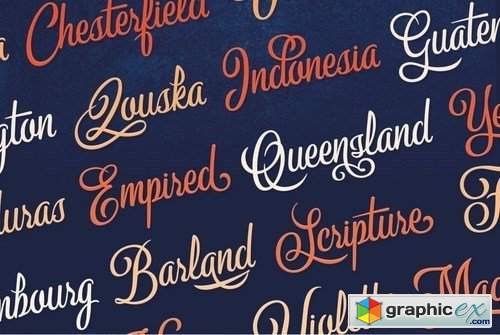
Milford Script
A Versatile Typeface with nice and fancy curved. Consists of so many special characters, nice ligatures, initial-final forms and also multi-language support.